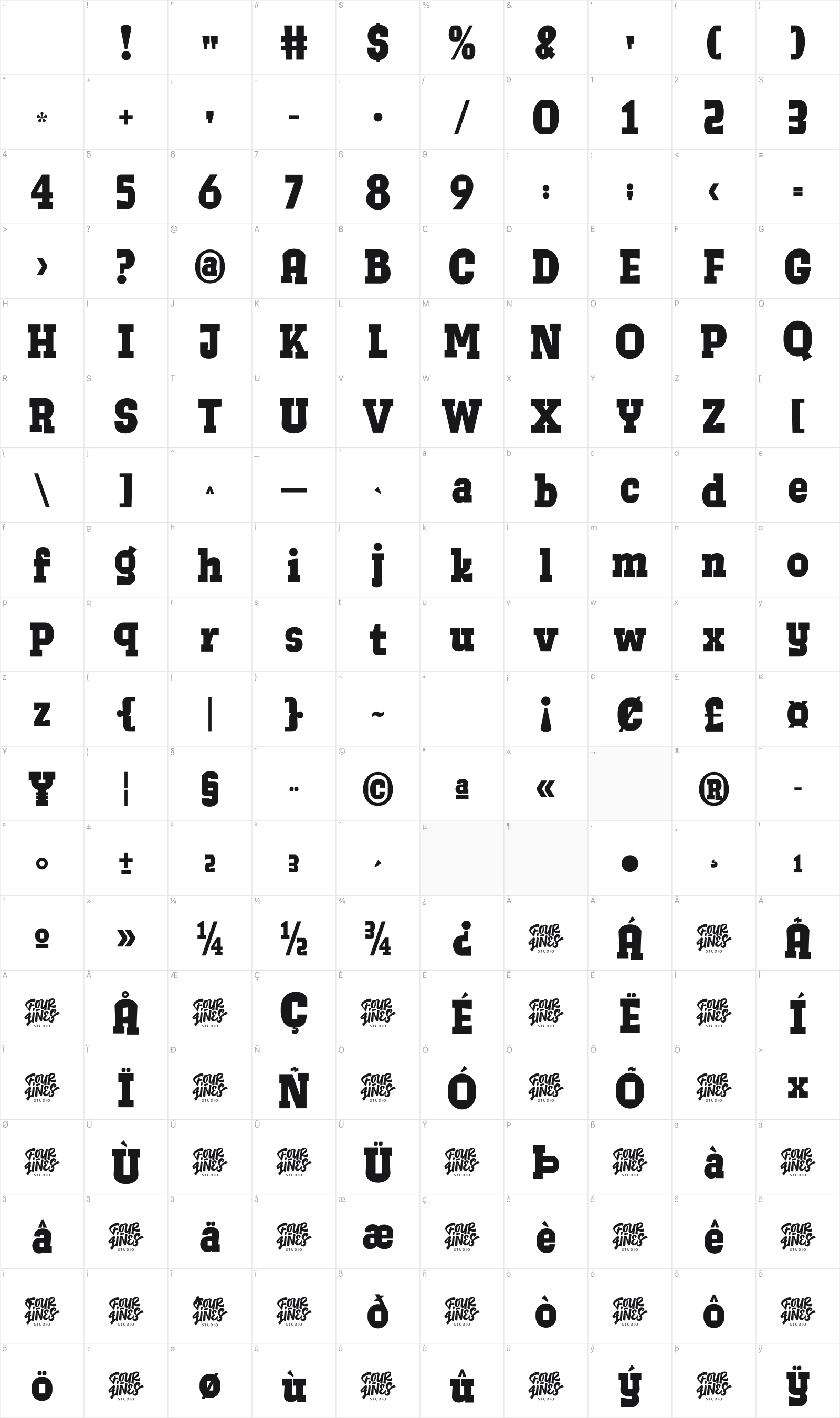
Gastro Codes
Gastro Codes is a heavy slab serif built for maximum impact at display sizes, with thick bracketed serifs and robust strokes that feel grounded and authoritative. Its low stroke contrast and compact proportions give it the punchy quality of classic newspaper headlines and vintage signage. A strong choice for editorial mastheads, packaging, and bold identity work.